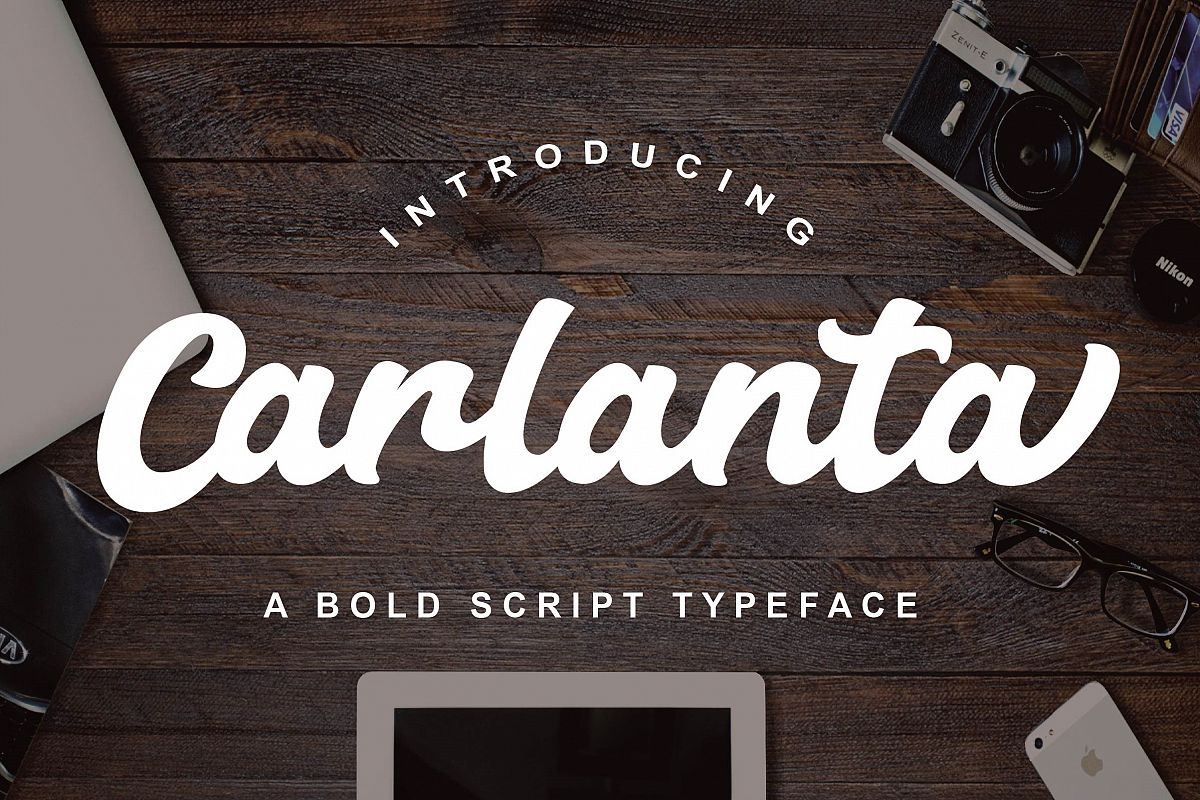
Carlanta Bold Script
Swash Carlanta
Carlanta Bold Script
Carlanta Script Font is a beautiful font which contains uppercase and lowercase letters and numbers by Faras Dina. It’s perfectly suited to bold script, stationery, logo, branding, poster, social media, ad banner, wedding invitation, greeting card, etc.